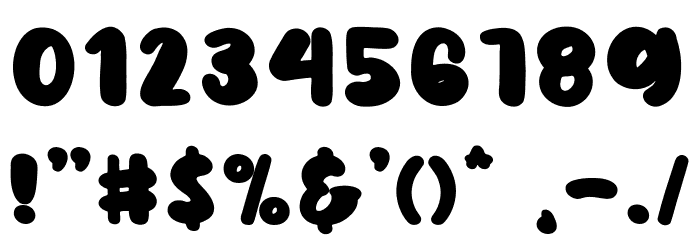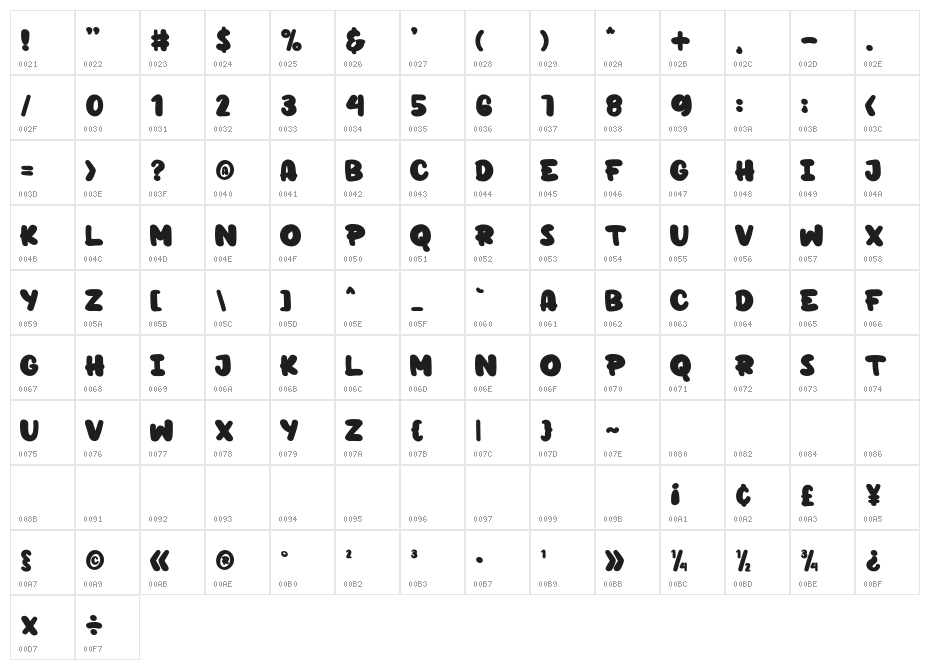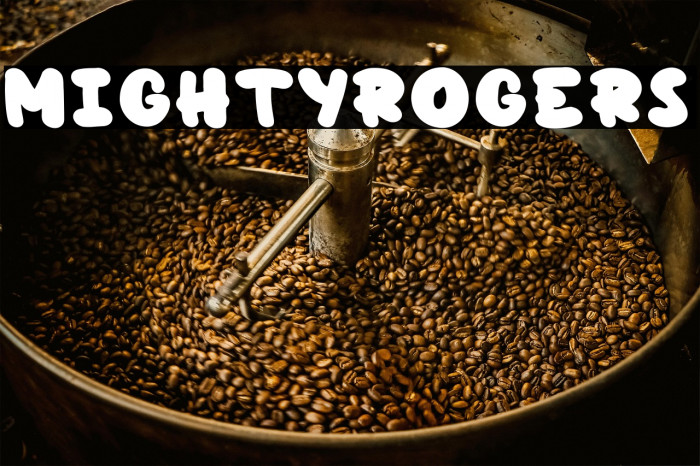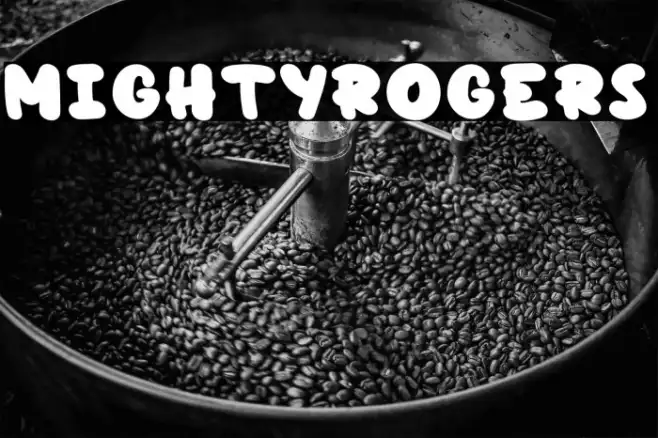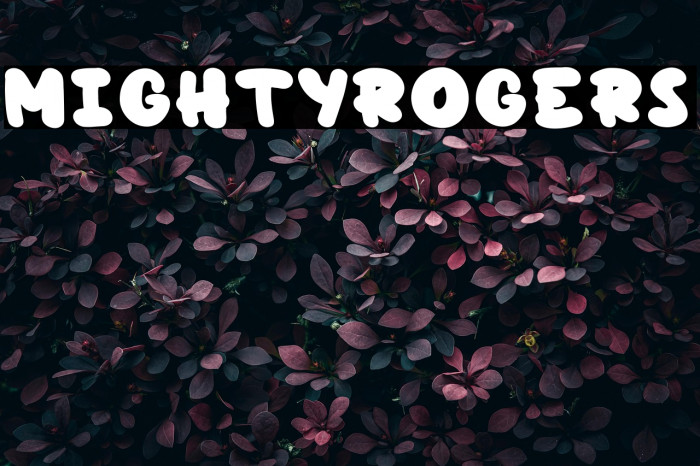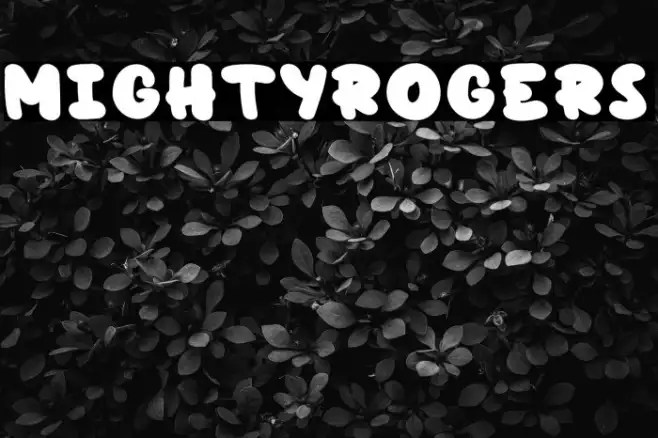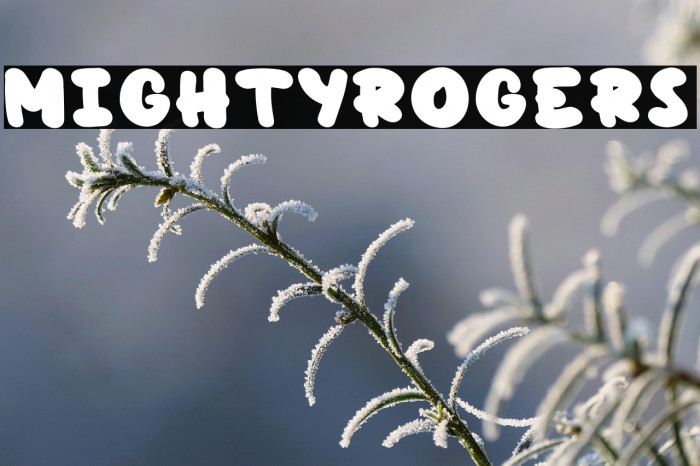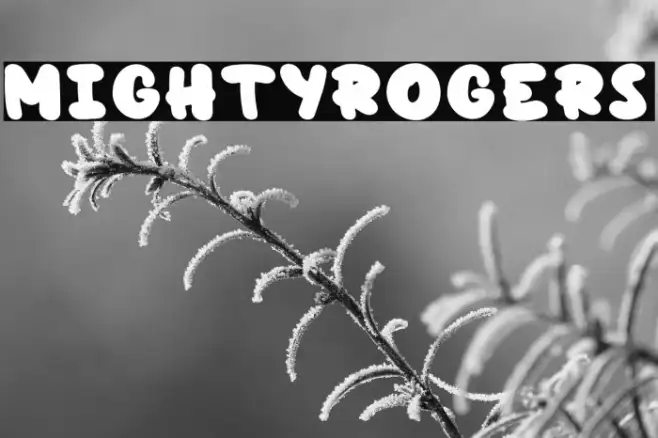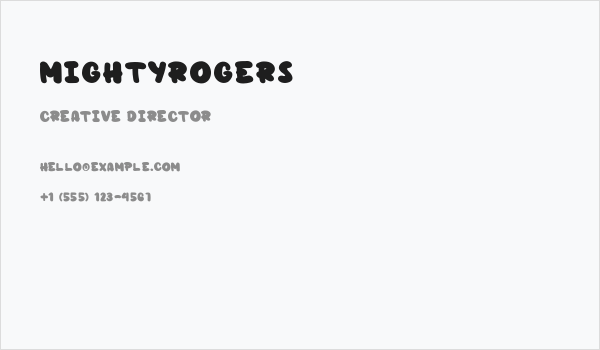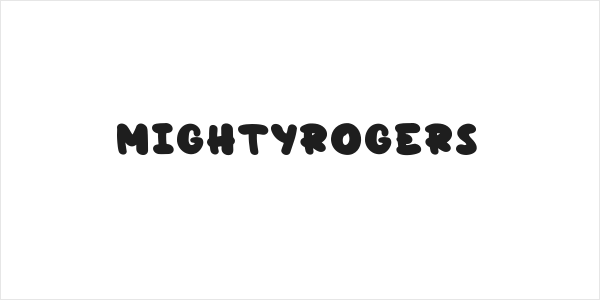
MightyRogers Font
MightyRogers Description
This font features bold, rounded characters with a playful and energetic style. The letters are thick and have a uniform stroke width, giving them a strong presence on the page. The rounded edges and slightly irregular shapes add a whimsical touch, making it suitable for informal and fun designs. The numbers and special characters maintain the same bold and rounded characteristics, ensuring consistency across all glyphs. This font is highly legible and stands out due to its heavy weight and unique style.
| Proposed Projects | Ideal for children's books, playful branding, comic strips, and fun event posters. |